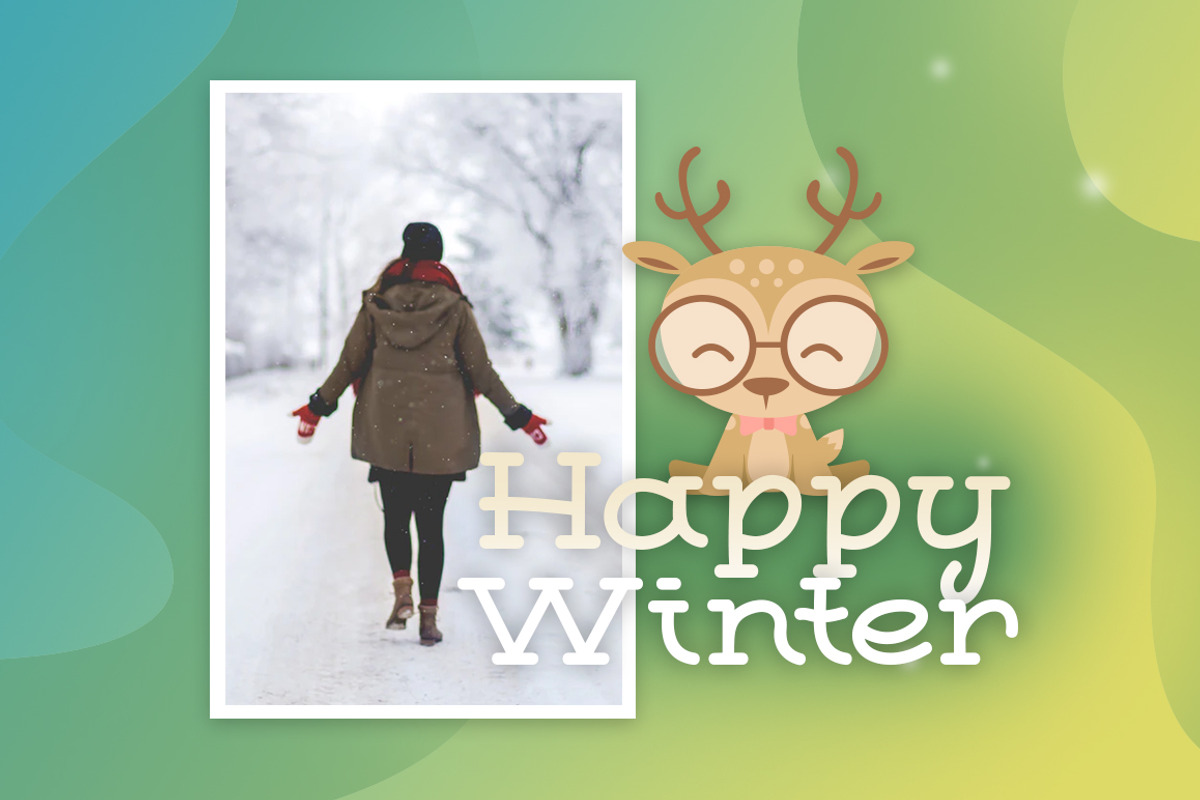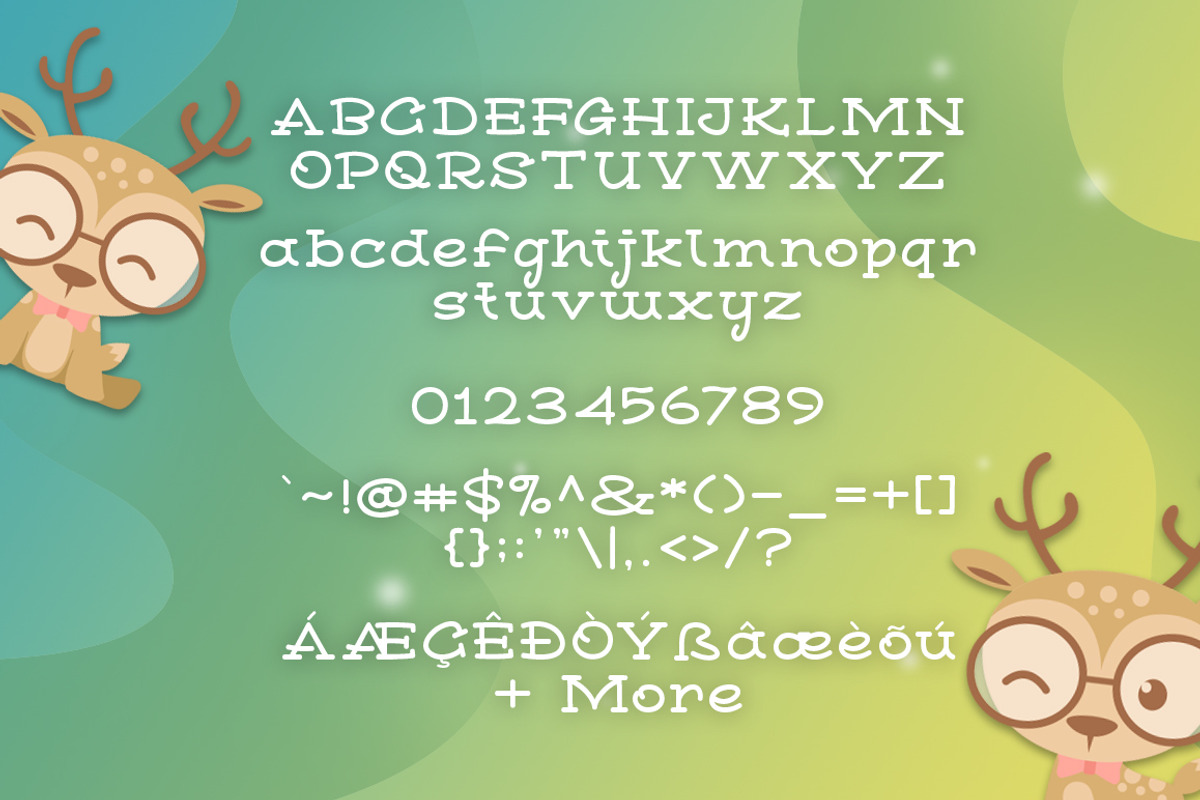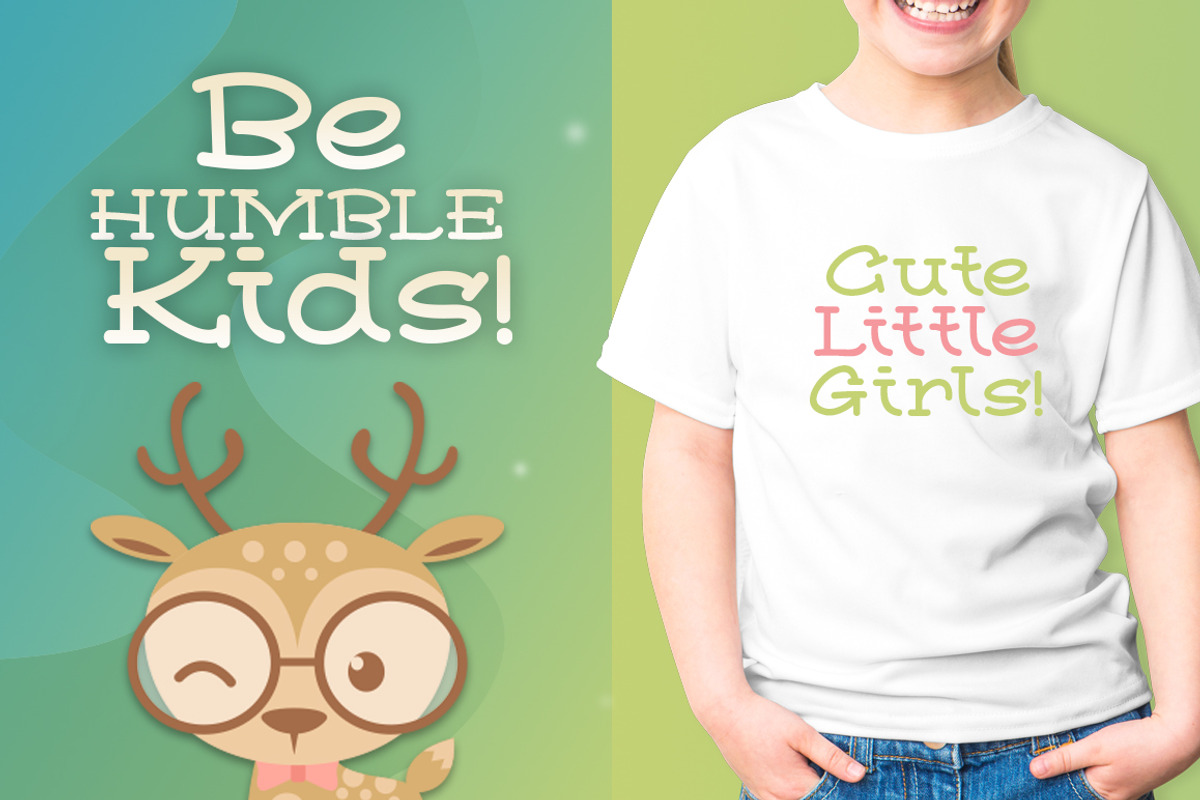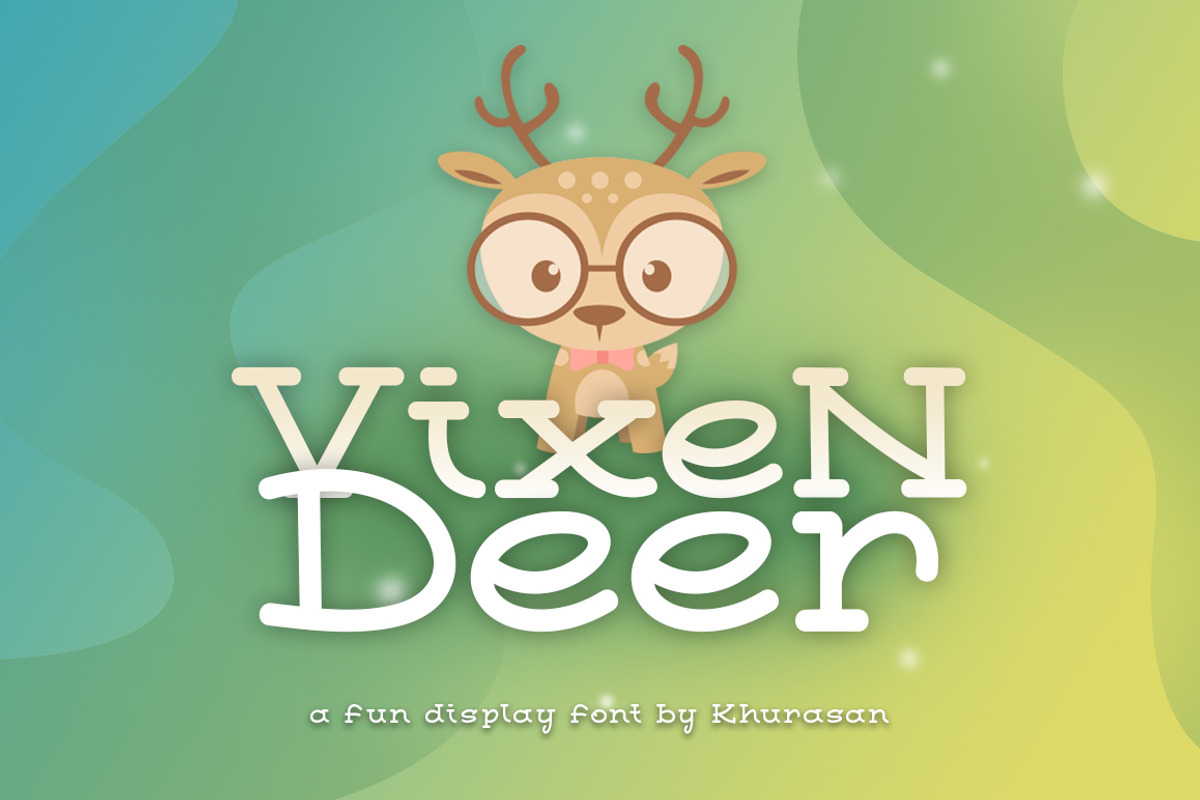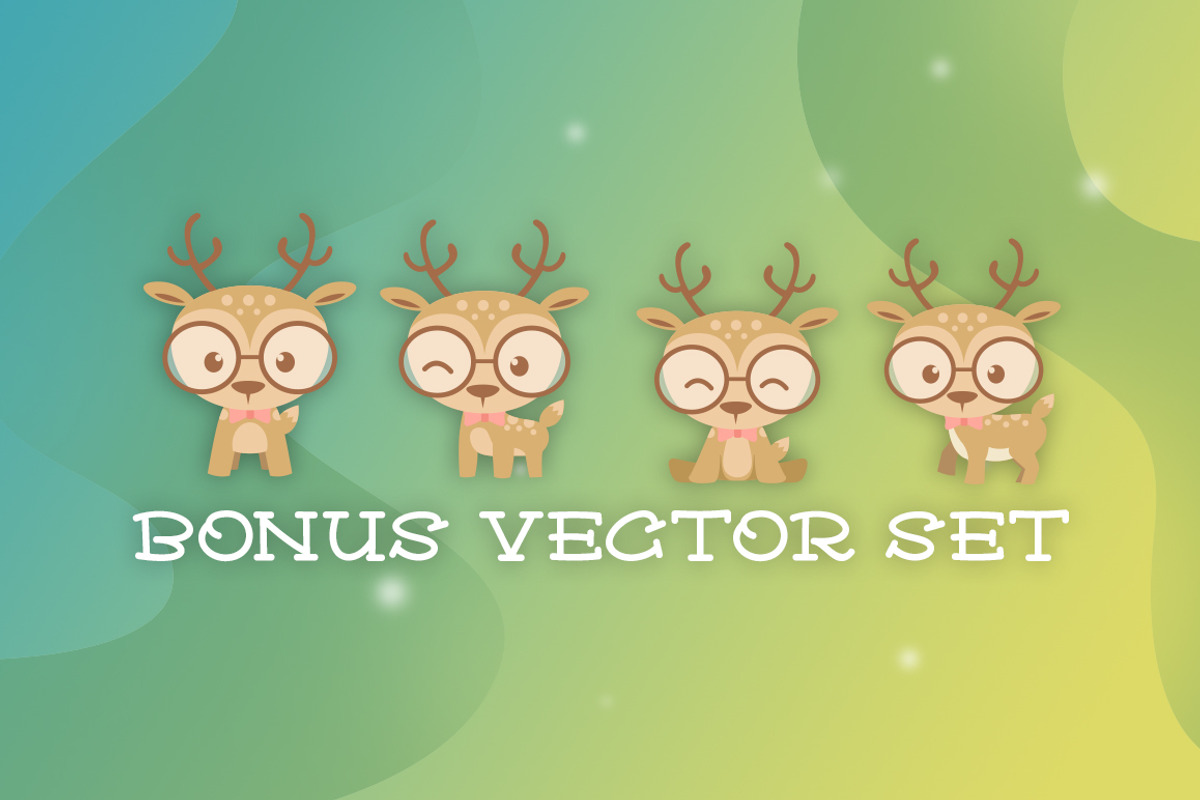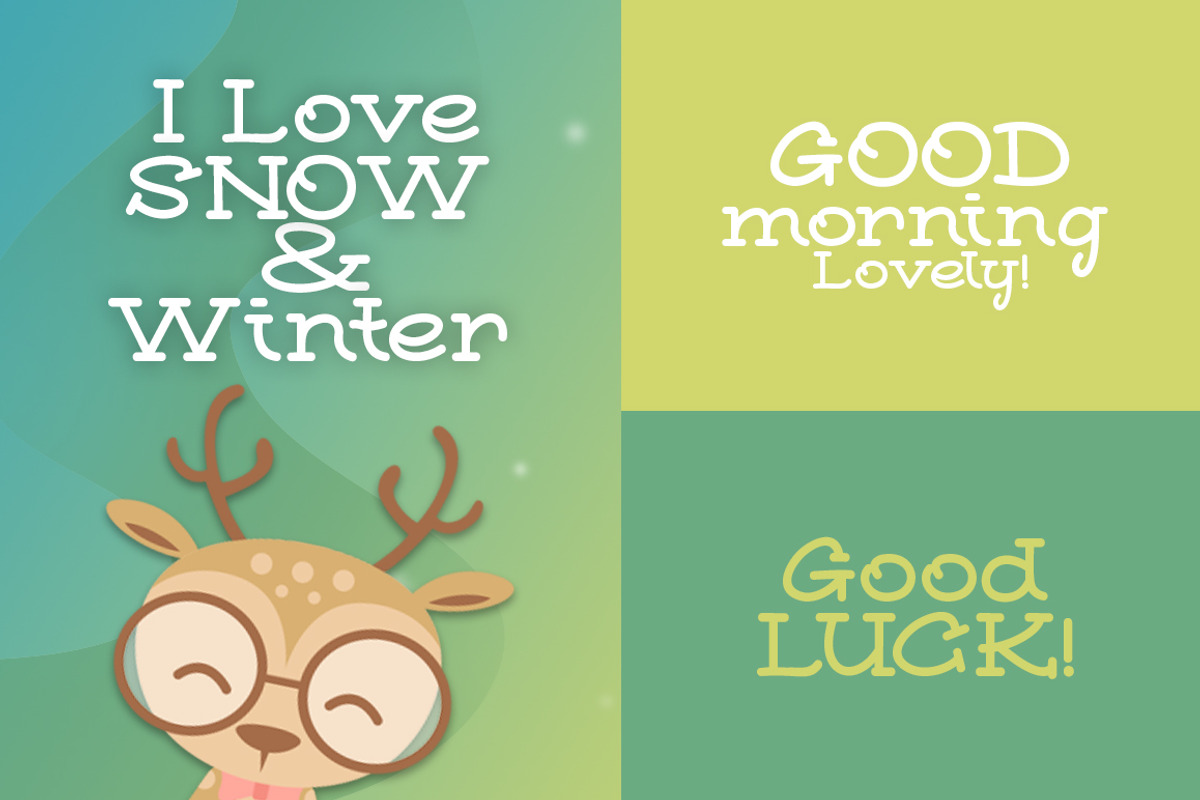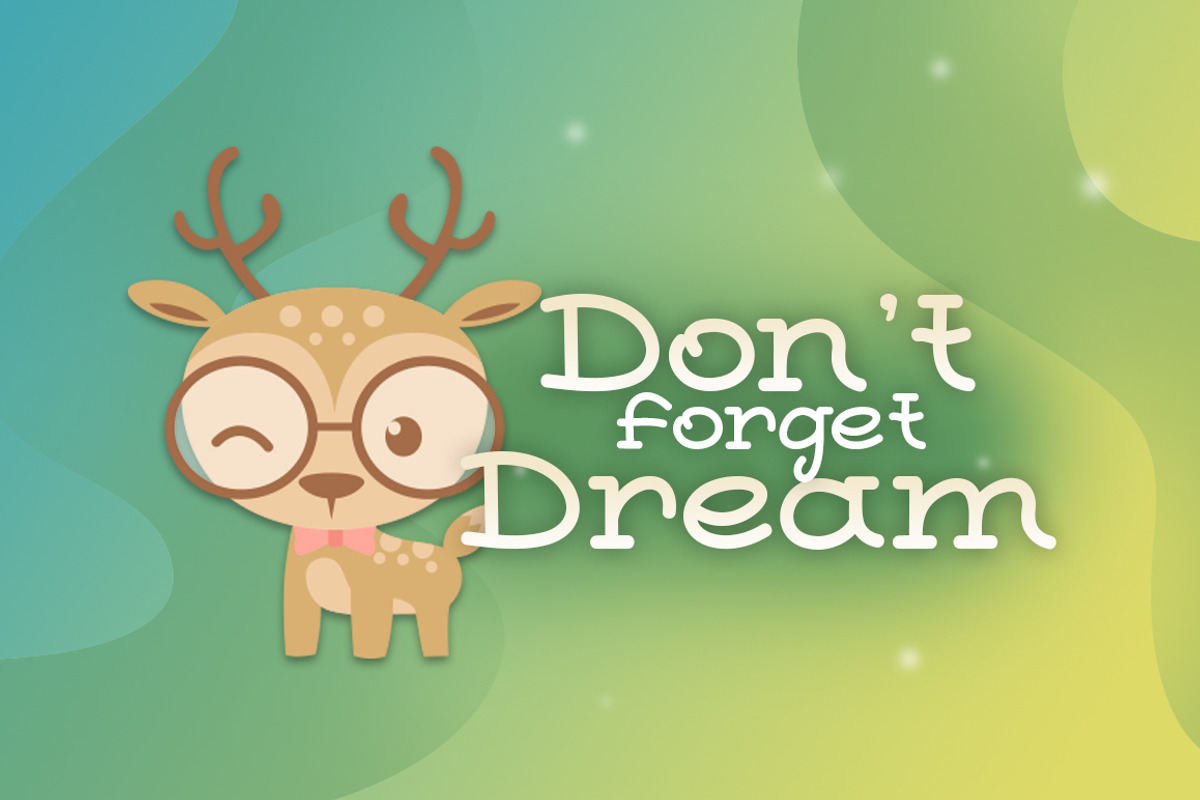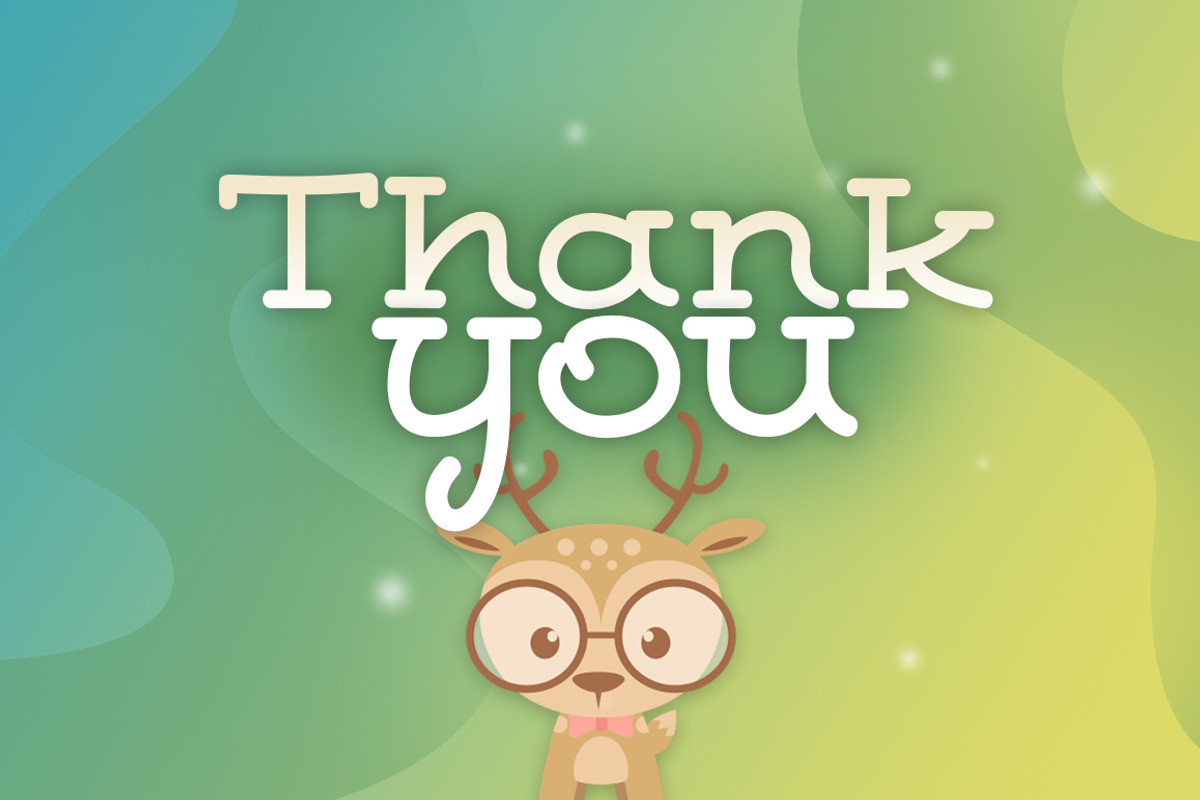
Vixen Deer Font + Vector
Introducing, Vixen Deer font a fun display typeface with cheerful theme for your fun project. Vixen Deer font suitable for logo, branding, greeting card, poster and any design that you create.